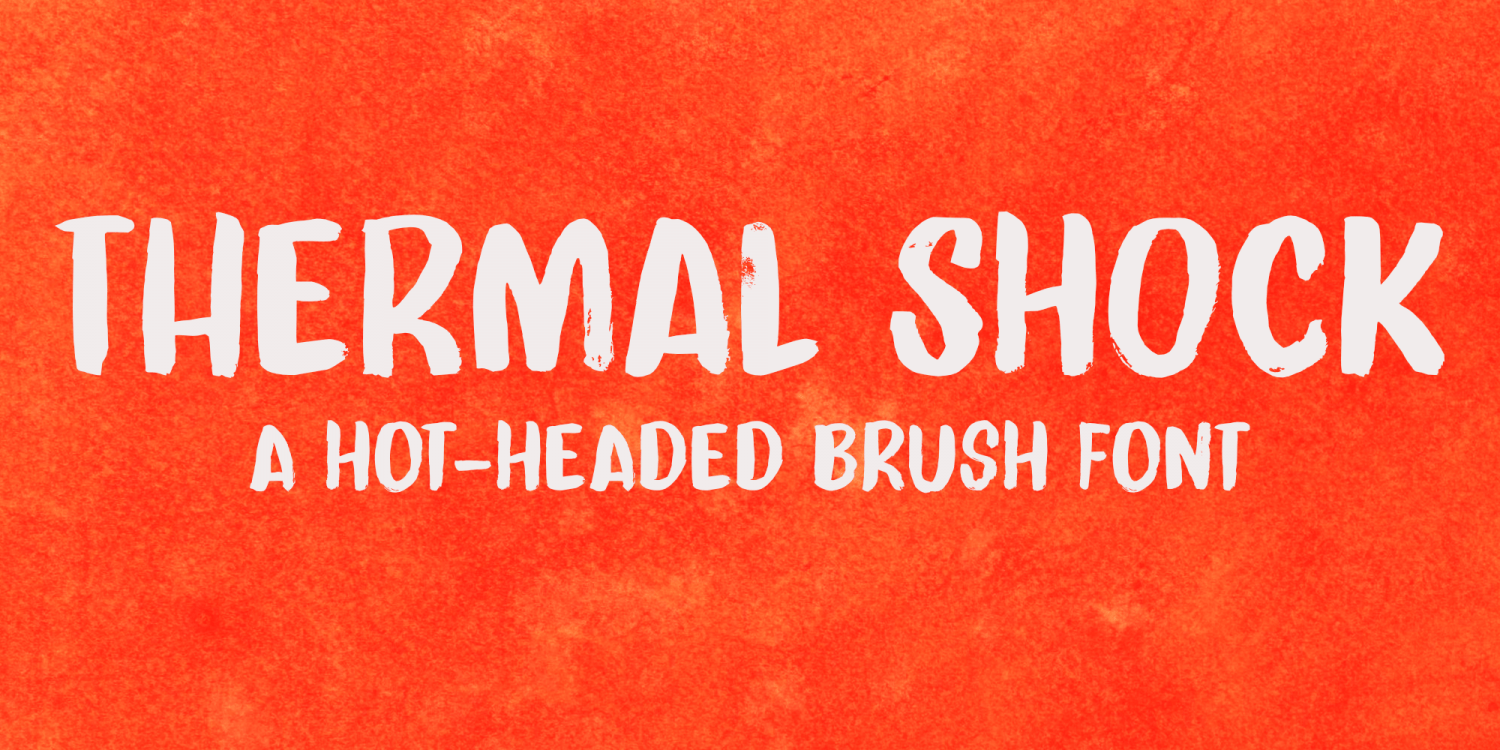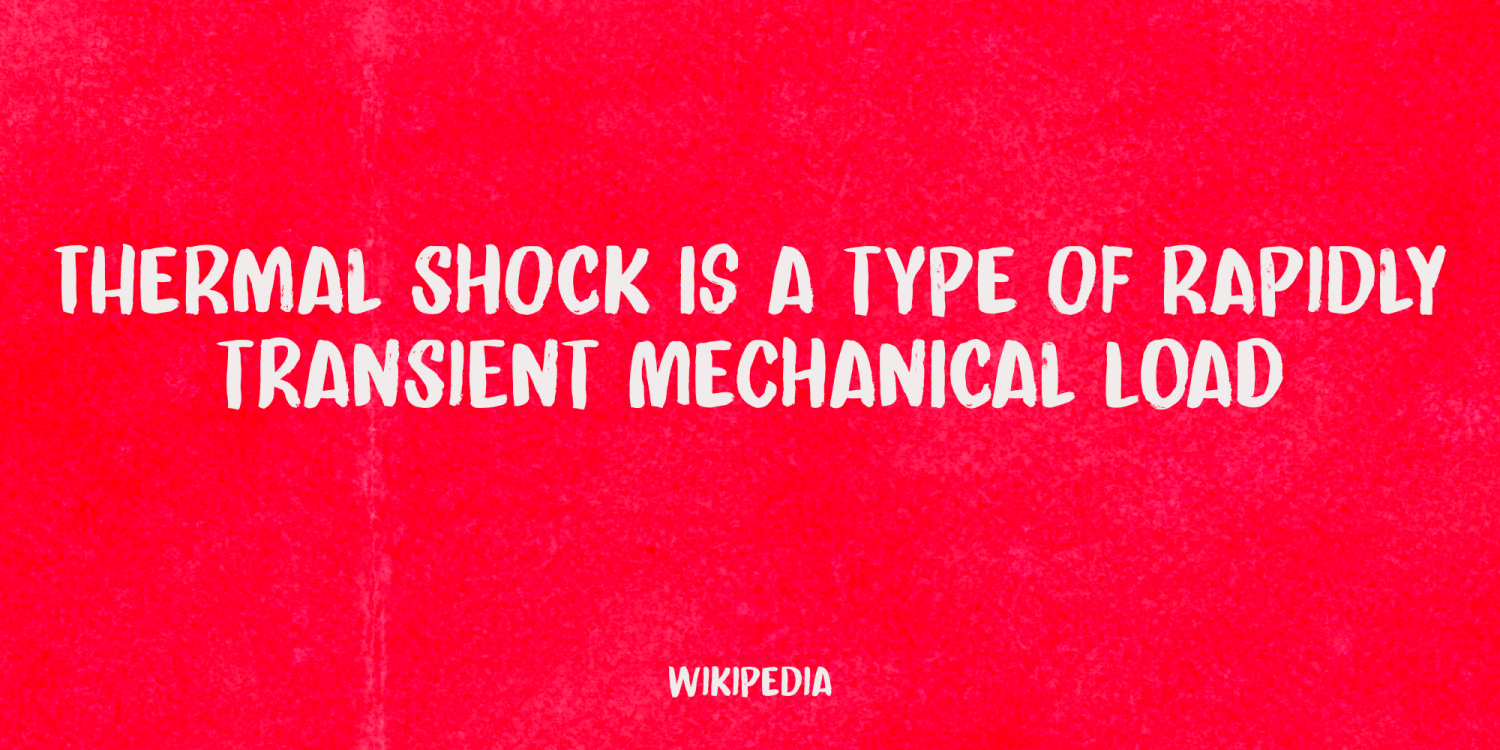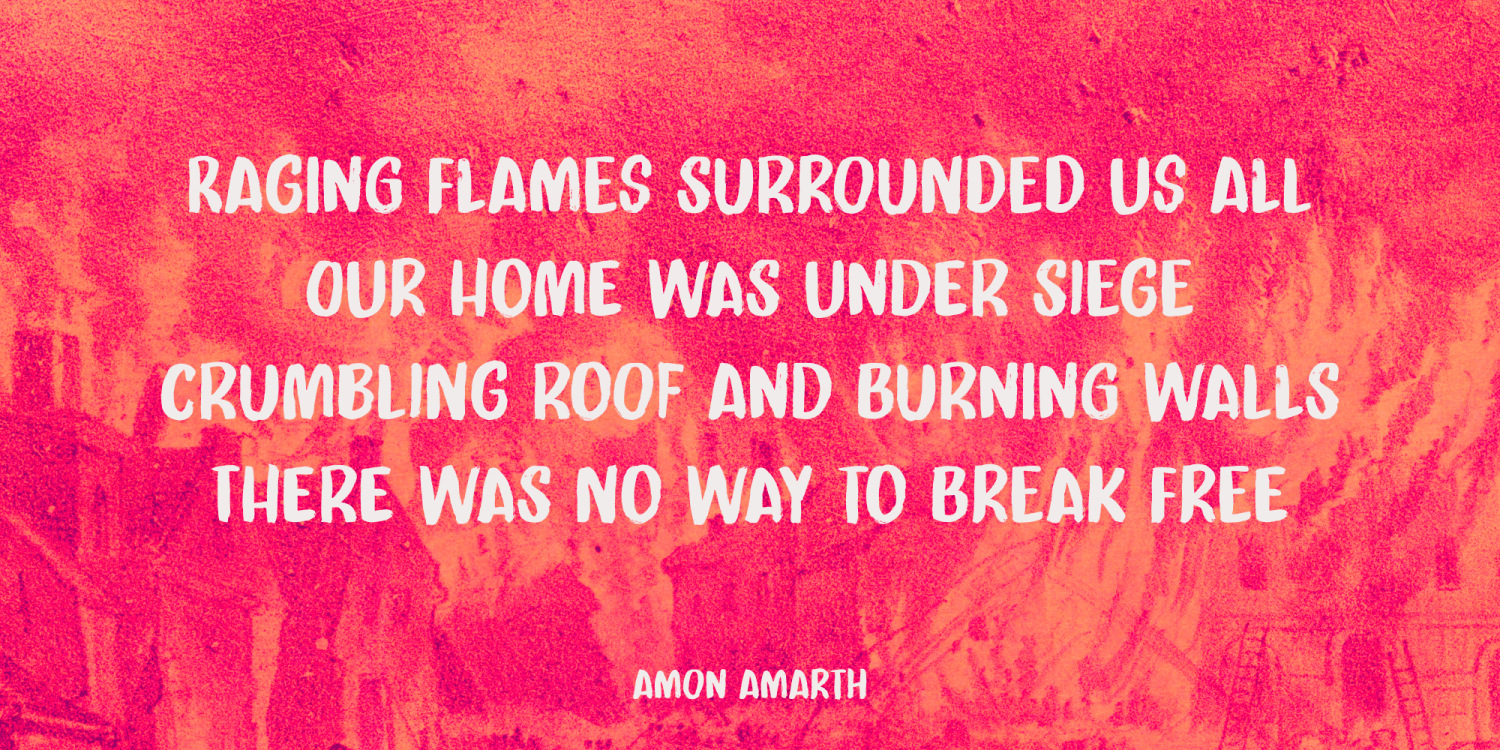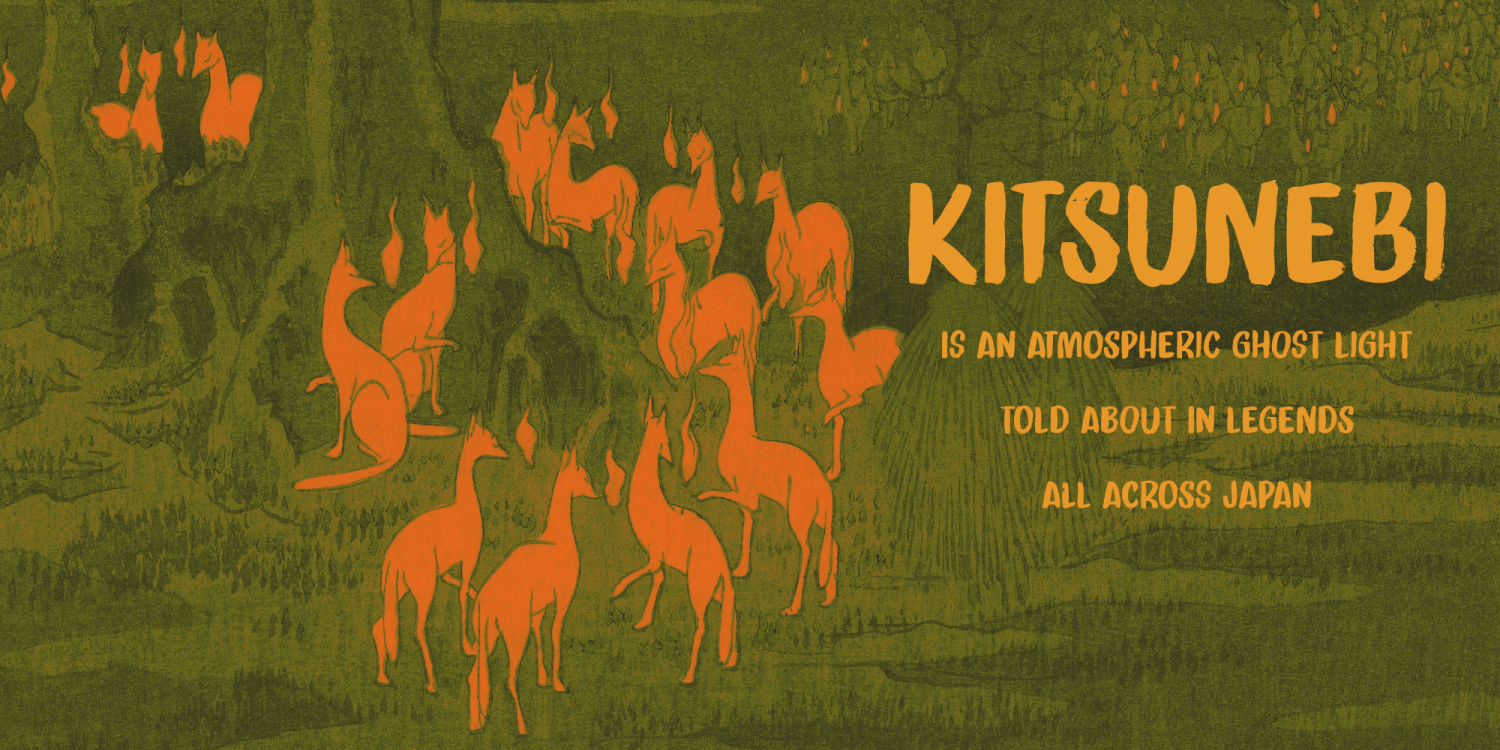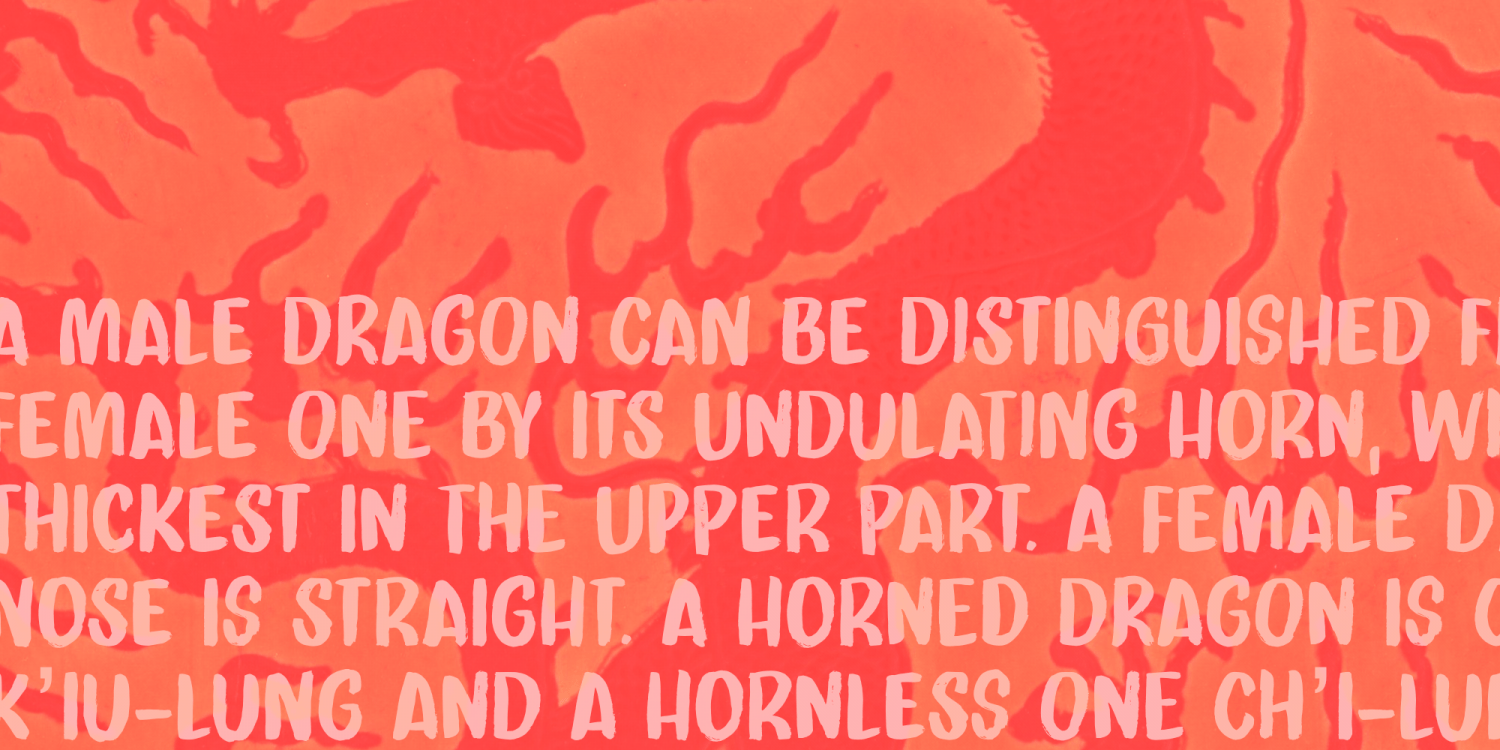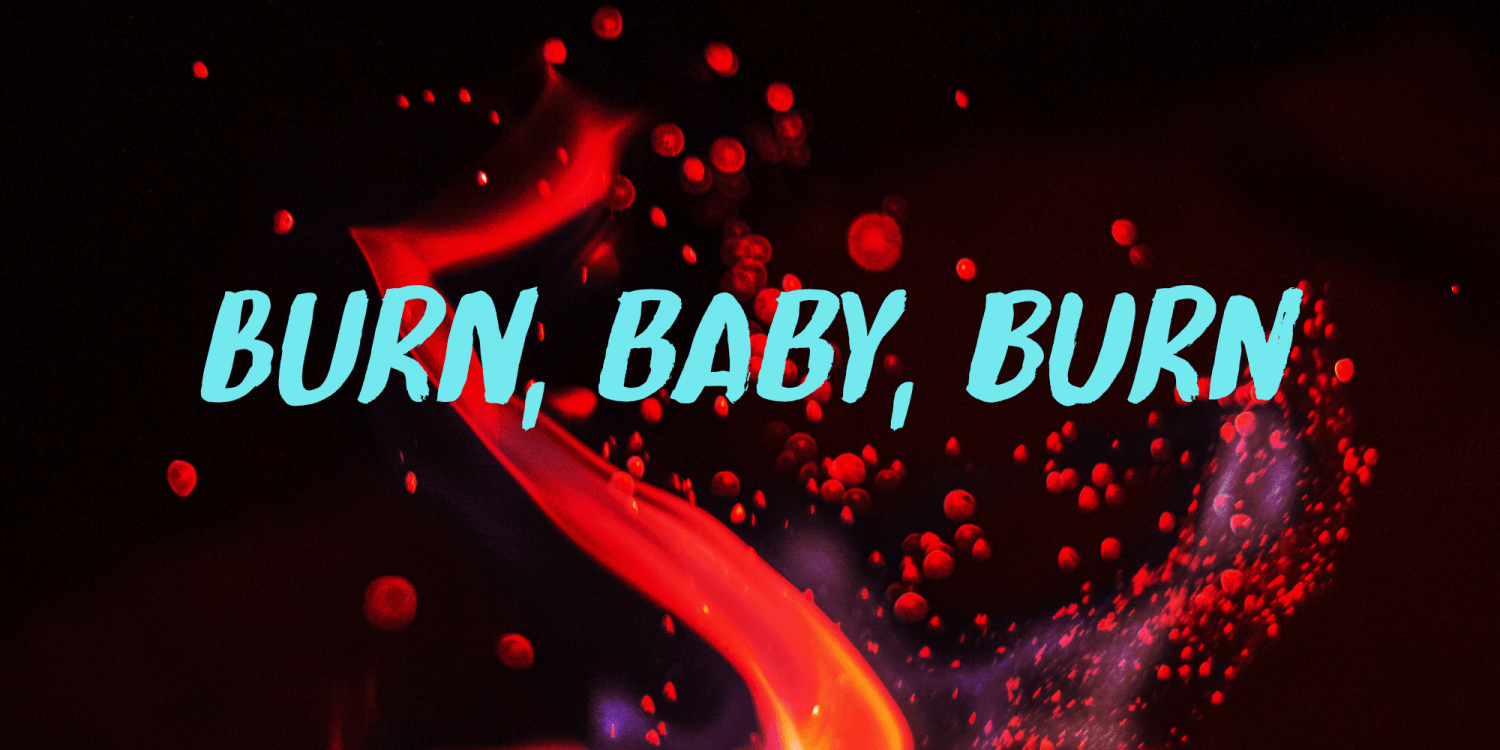
Thermal Shock
Thermal Shock font is a very nice, handmade brush font. If you ever bought any brush fonts of mine, you will know that I almost always use Chinese ink and cheap brushes to create 'the look'. It is always a bit of a surprise how a Chinese ink brush font turns out: I created one the other day and it looked horrible, so it was banned. Thermal Shock turned out to be a looker.
Thermal Shock comes with one set of alternate glyphs, extensive language support (including Greek and Vietnamese) and a guarantee it won't crack in super hot designs.